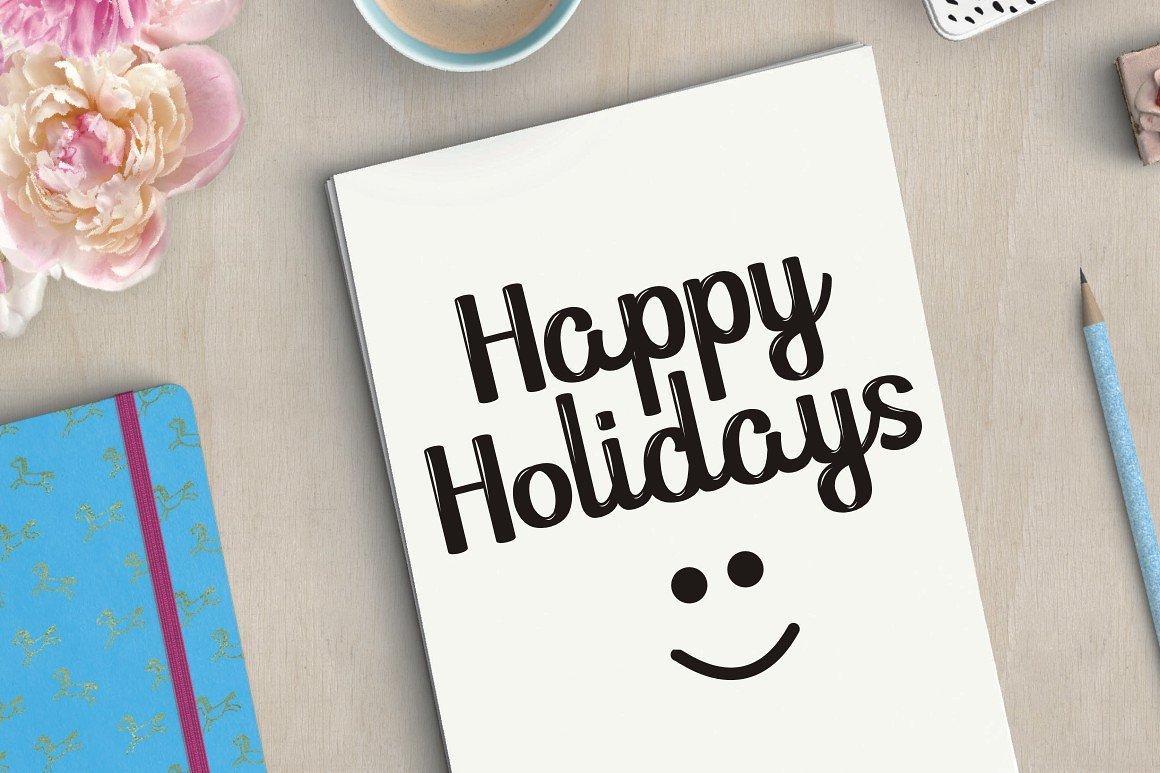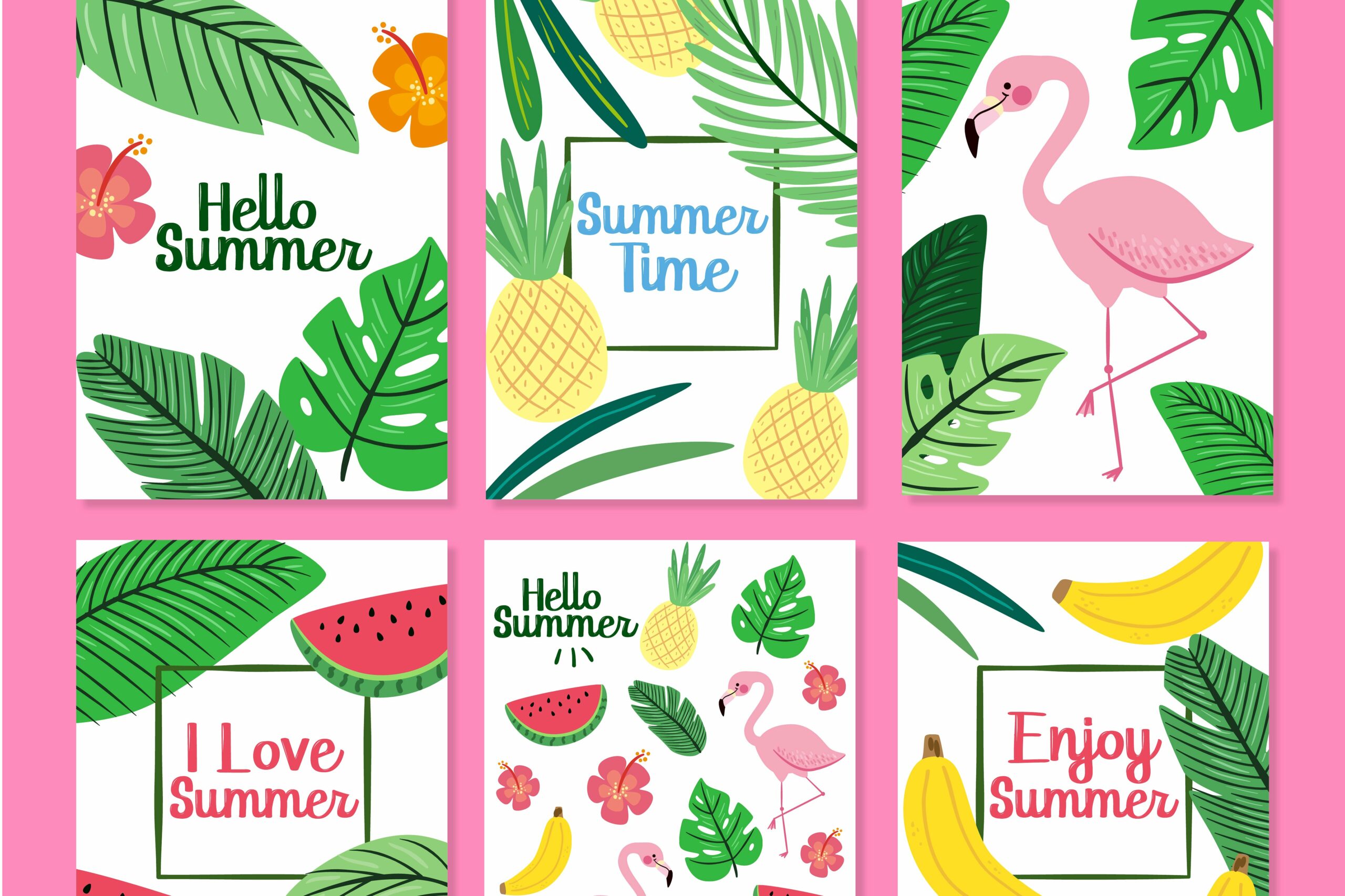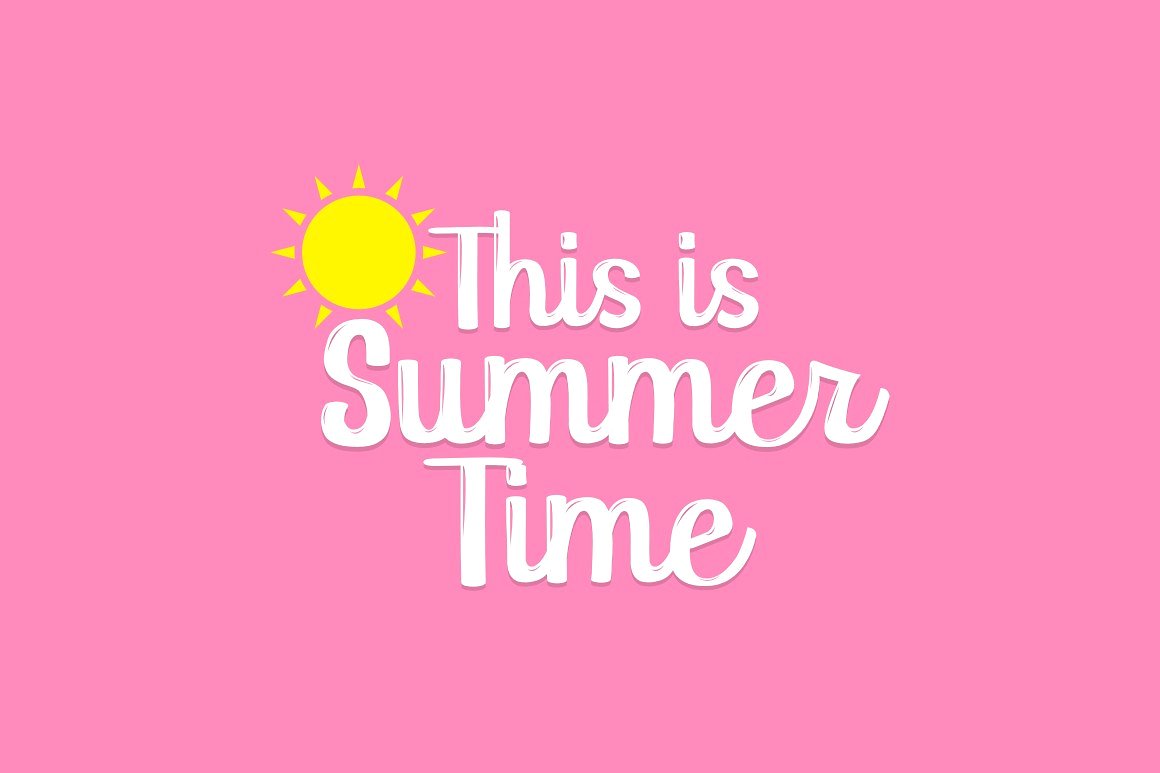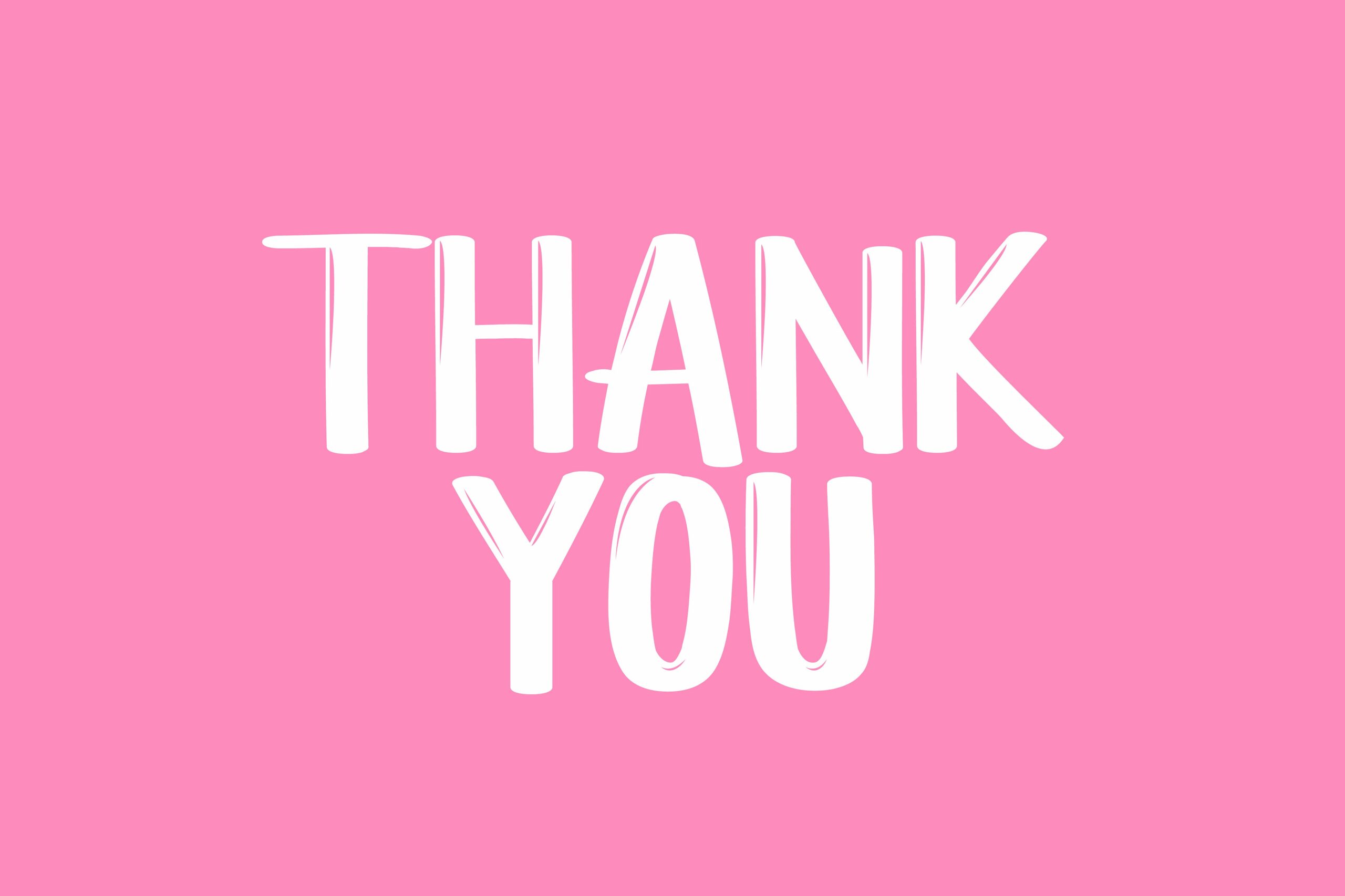
HomeScript FontsHello Dina Font Script Fonts Hello Dina Font FacebookXPinterestWhatsApp Hello Dina Font Poster 2 Hello Dina Font Poster 3 Hello Dina Font Poster 4 Hello Dina Font Poster 5 About Hello Dina Font Hello Dina is a hand lettered, neat looking script created by Debut Studio. DOWNLOAD ON CREATIVE FABRICAThis font is sold and delivered by Creative Fabrica. Font Canyon may earn a commission if you buy through this link. People also explored Heartway Font Something Font Charlotte Font Adam Script Font Wedding in Farmhouse Font ABS Monogram Font Dindalove Font Simple Hunado Font Raspberry Font 275 0 TagsHello Dina Font Previous articleRachael FontNext articlePriscillia Font LEAVE A REPLY Cancel reply Comment: Please enter your comment! Name:* Please enter your name here Email:* You have entered an incorrect email address! Please enter your email address here Website: Save my name, email, and website in this browser for the next time I comment. Personal Use Free Hearted Personal Use Free Read more about this font Retro Poster Personal Use Free Read more about this font Entin Personal Use Free Read more about this font Imelda Personal Use Free Read more about this font BLOG Elegant Wedding Invitation Fonts – Handwritten & Script Fonts Elegant Wedding Invitation Fonts Your wedding day is one of the most important moments of your life, and every detail matters—including your invitation design. Our... Best Fonts for T-Shirt Design – Top 2025 Picks Fonts That Capture the Spirit of New York City Top 7 Google Fonts Alternatives for Faster and Privacy-Friendly Web Design (2025)